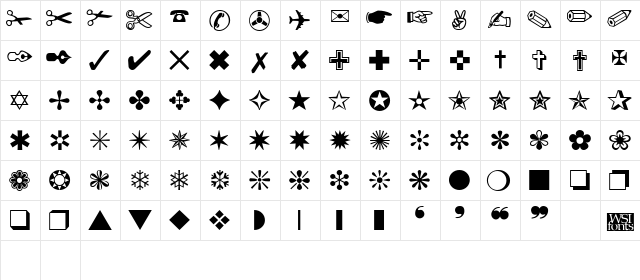
Dingbats One Regular Font Preview
Dingbats One Regular
Design Context for Dingbats One Typeface
Dingbats One takes a measured approach to typography — its balanced proportions and neutral character make it a reliable workhorse for both digital and print work.
Pro Tip: Use Dingbats One in both headline and body roles to test its range before committing to a single application.